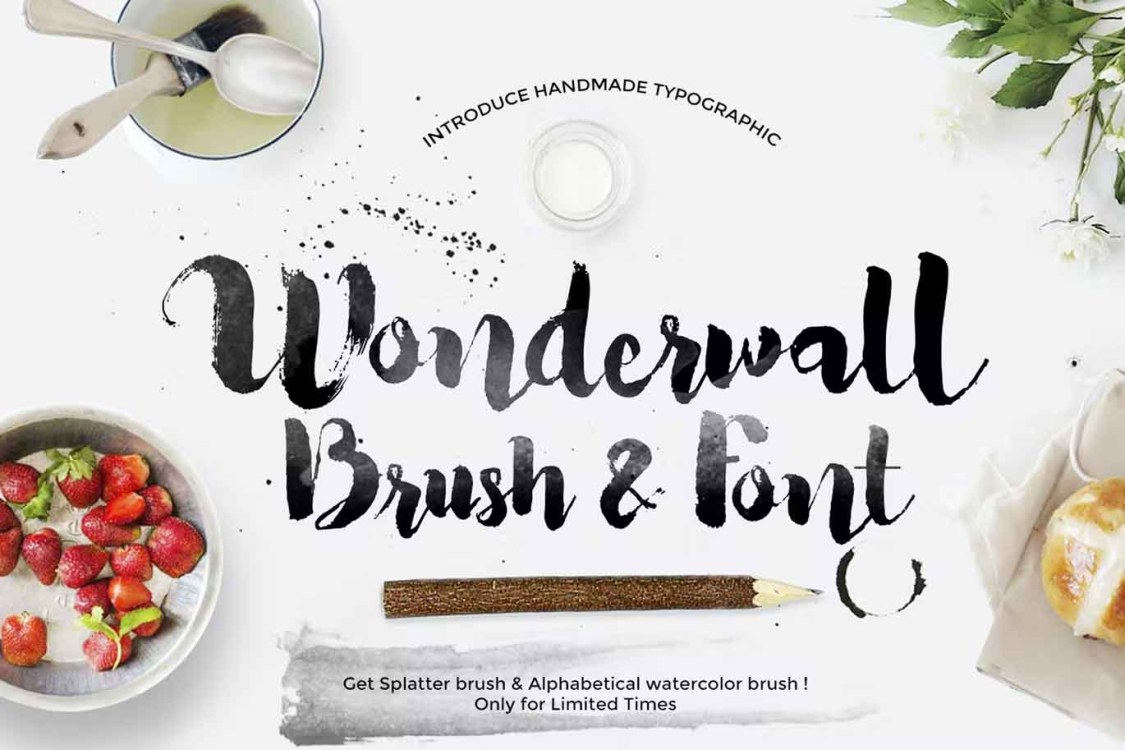
Wonderwall Font
Wonderwall script typeface Wonderwall font comes from manual Typographic and transparent watercolor. trying to make a case characters irregular but have a good harmony.…
Wonderwall script typeface
Wonderwall font comes from manual Typographic and transparent watercolor. trying to make a case characters irregular but have a good harmony. Create something different with ligatures and alternate. Suitable for making crafts manual arts. greeting in love with the natural impression, wedding card
Where Wonderwall Font works best
Seasonal campaigns
Wonderwall Font gives a holiday or themed promotion its own look without redrawing anything; use it for the headline only.
Party and family invitations
Decorative letters set the mood before the text is read. Pair Wonderwall Font with a plain sans for the practical details.
Game and video titles
Themed lettering sells the world of a game or a channel in one frame.
What kind of work does Wonderwall Font suit?
It sits in the Decorative Fonts group and reads as decorative, decorative fonts, script, typeface. That makes it a candidate wherever those qualities help: headings, packaging, social graphics and brand work. Set it at the size you plan to use before deciding.